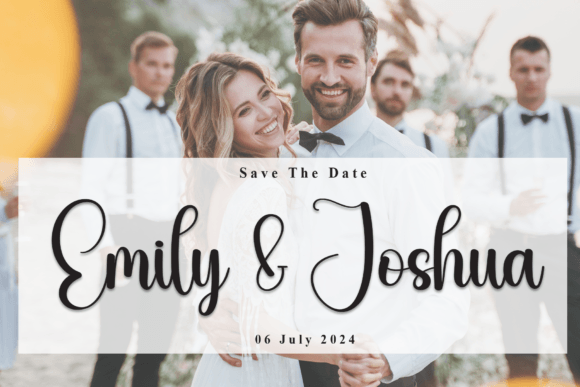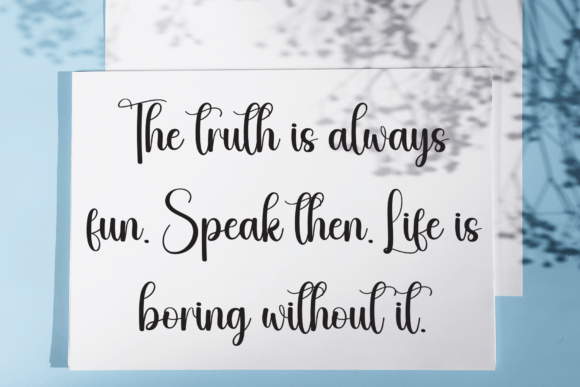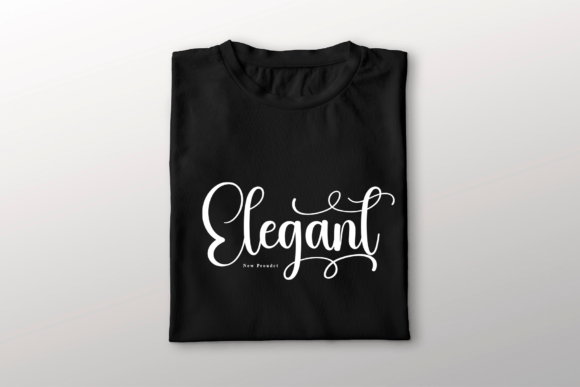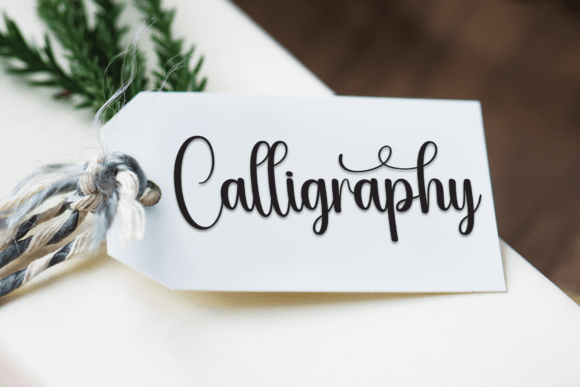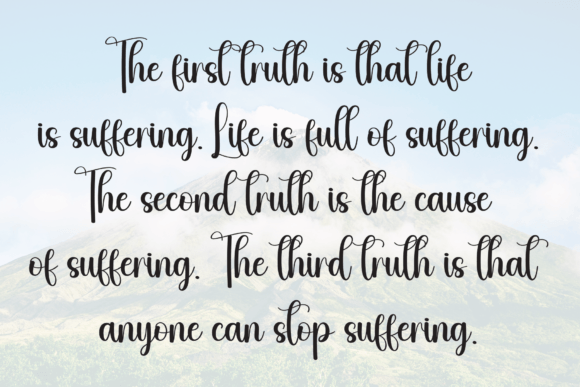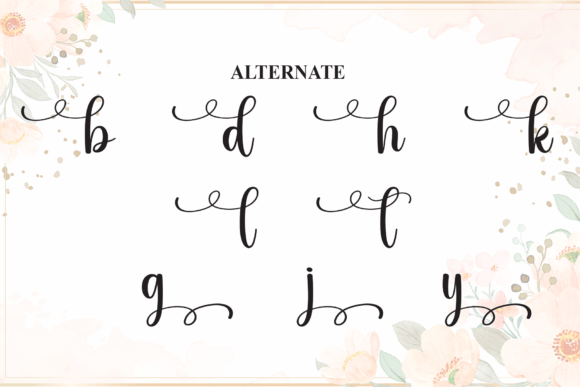
The Sweet Spot: Discovering the Charm of Angelica Font
I’ll never forget the moment I stumbled upon the Angelica font while working on a whimsical craft project for a client. I was on a mission to find the perfect handwritten font that would bring a touch of warmth and personality to the design. As I scrolled through my font library, Angelica caught my eye with its sweet and friendly vibe. It was love at first sight! ✨ In this article, I’ll share my experience with Angelica, its unique features, and how to make the most of this beautiful font in your designs.
- ✅ Unique and natural style: Angelica’s handwritten charm makes it perfect for a wide range of designs, from crafts to branding.
- ✅ Highly versatile: This font can be used for headings, body text, and even decorative elements.
- ✅ Easy on the eyes: Angelica’s gentle curves and flowing lines create a soothing visual experience.
- ✨ OpenType features: Angelica comes with a range of OpenType features, including stylistic alternates and glyphs, which allow for creative experimentation.
While Angelica is an amazing font, there are a few things to keep in mind: 🤔
- ⚠️ Legibility at small sizes: Like many handwritten fonts, Angelica can become a bit tricky to read at very small sizes (below 10pt). Use it for headlines or larger text for optimal impact.
- ⚠️ Kerning and spacing: Some users have reported issues with kerning and spacing, particularly when using the font in certain software or platforms. Experiment with adjustments to find the perfect fit.
The Story Behind Angelica: Designer Inspiration
Angelica was designed with the intention of creating a friendly, approachable font that would bring a touch of warmth to designs. The font’s creator drew inspiration from traditional handwritten scripts, infusing them with a modern twist. The result is a font that’s both elegant and playful, perfect for a wide range of creative projects.
Q: What type of projects is Angelica best suited for?
Angelica is incredibly versatile and can be used for a wide range of projects, including crafts, branding, packaging, and more.
Q: Is Angelica a difficult font to read?
Angelica is generally easy to read, but like many handwritten fonts, it can become tricky to read at very small sizes.
Q: Can I use Angelica with other fonts?
Absolutely! Angelica pairs well with a variety of fonts, so feel free to experiment and find the perfect combination for your design.